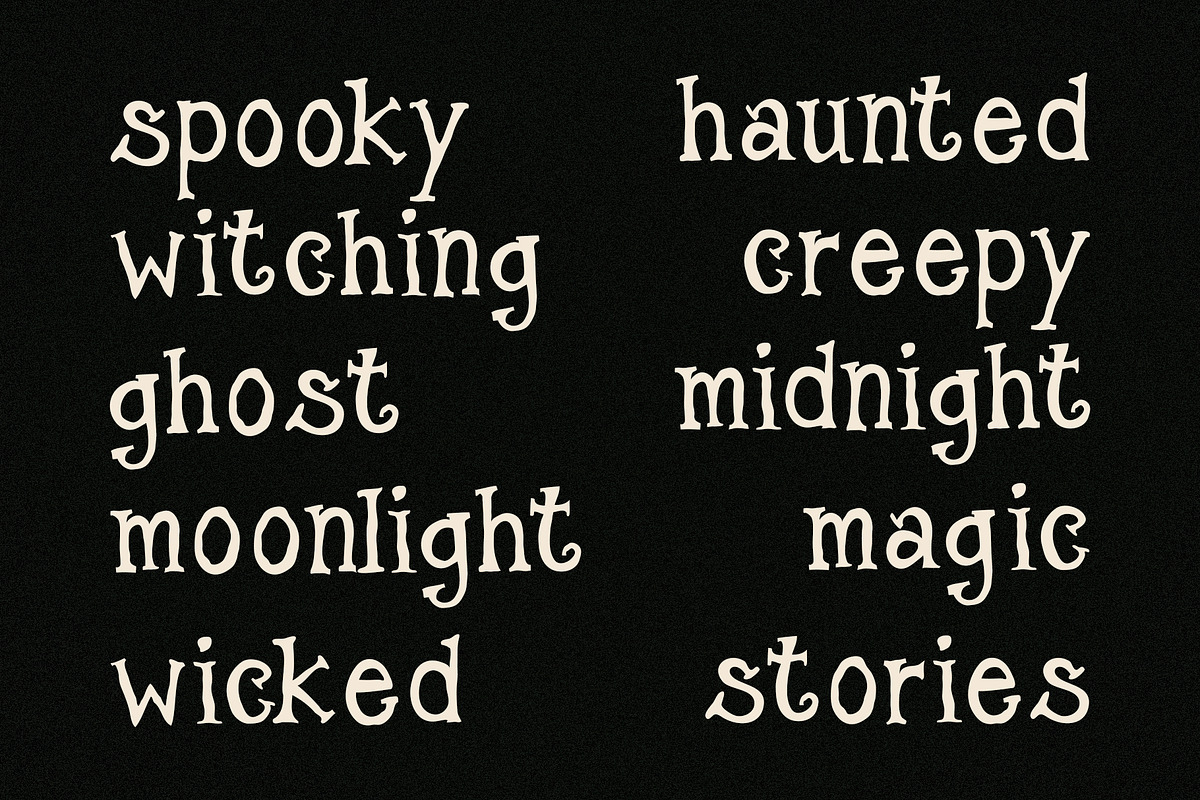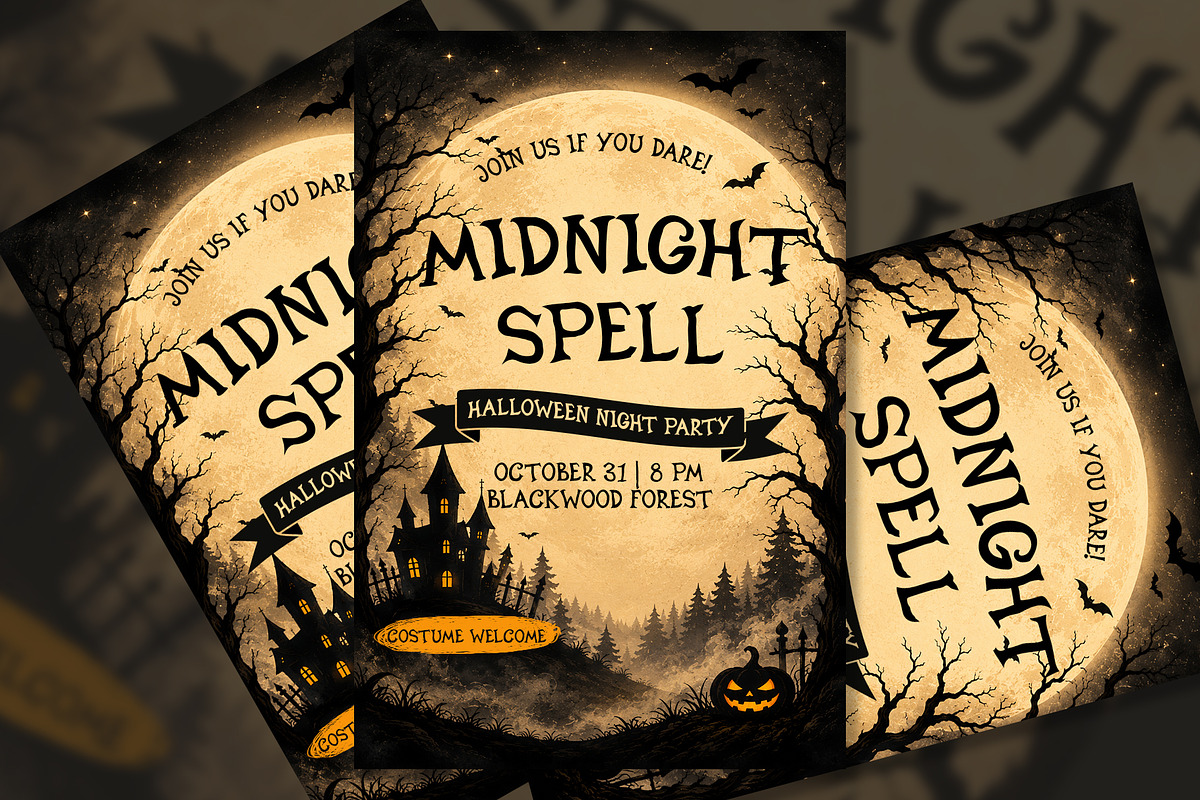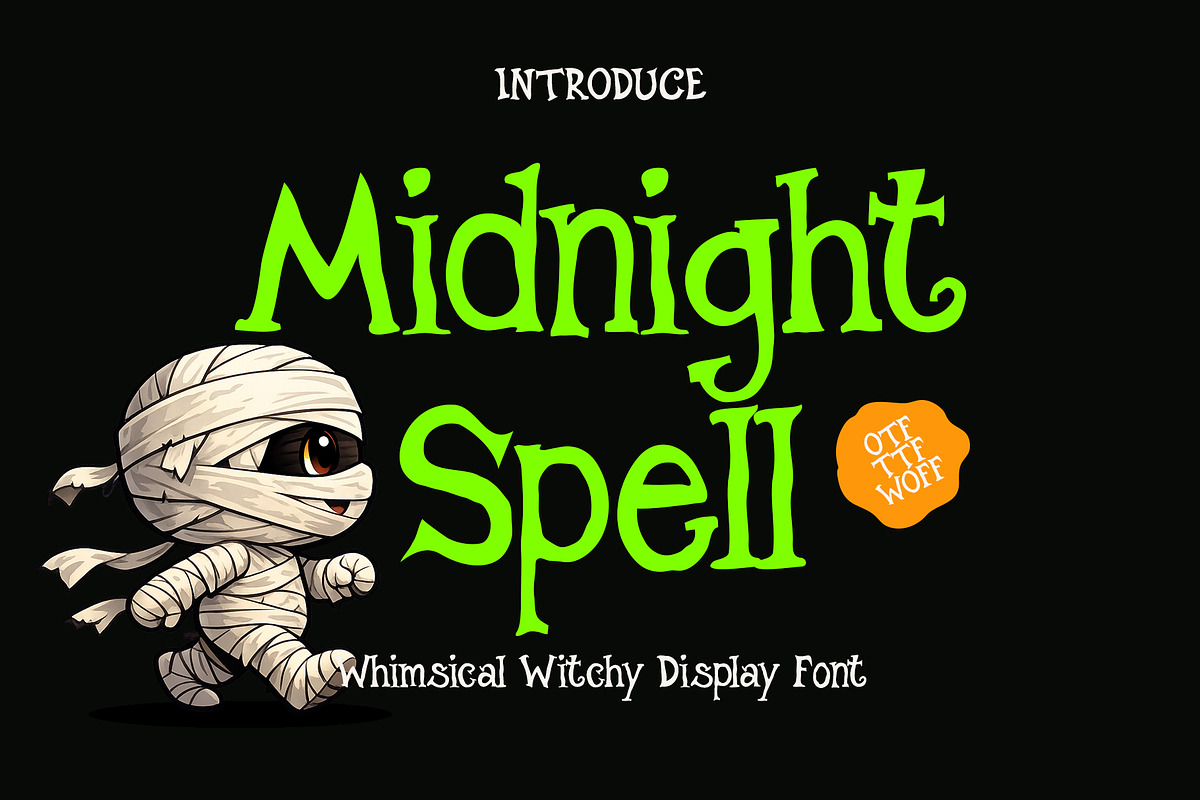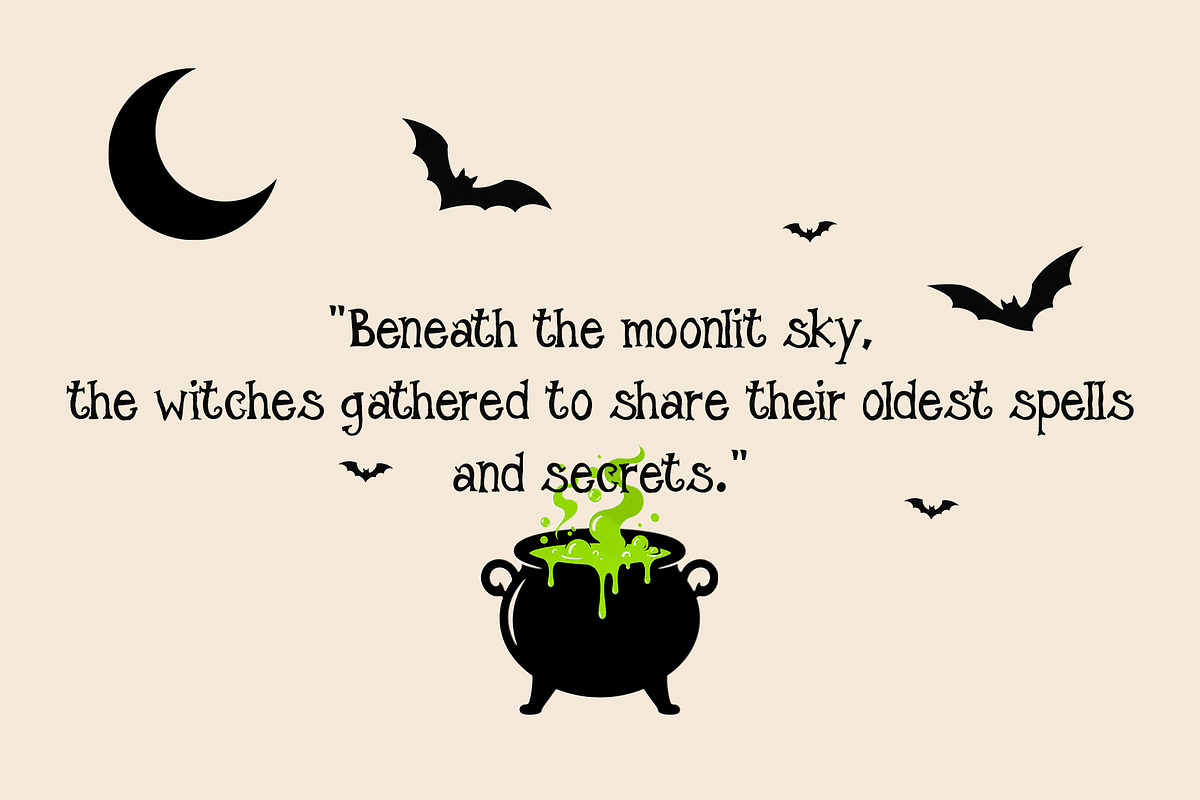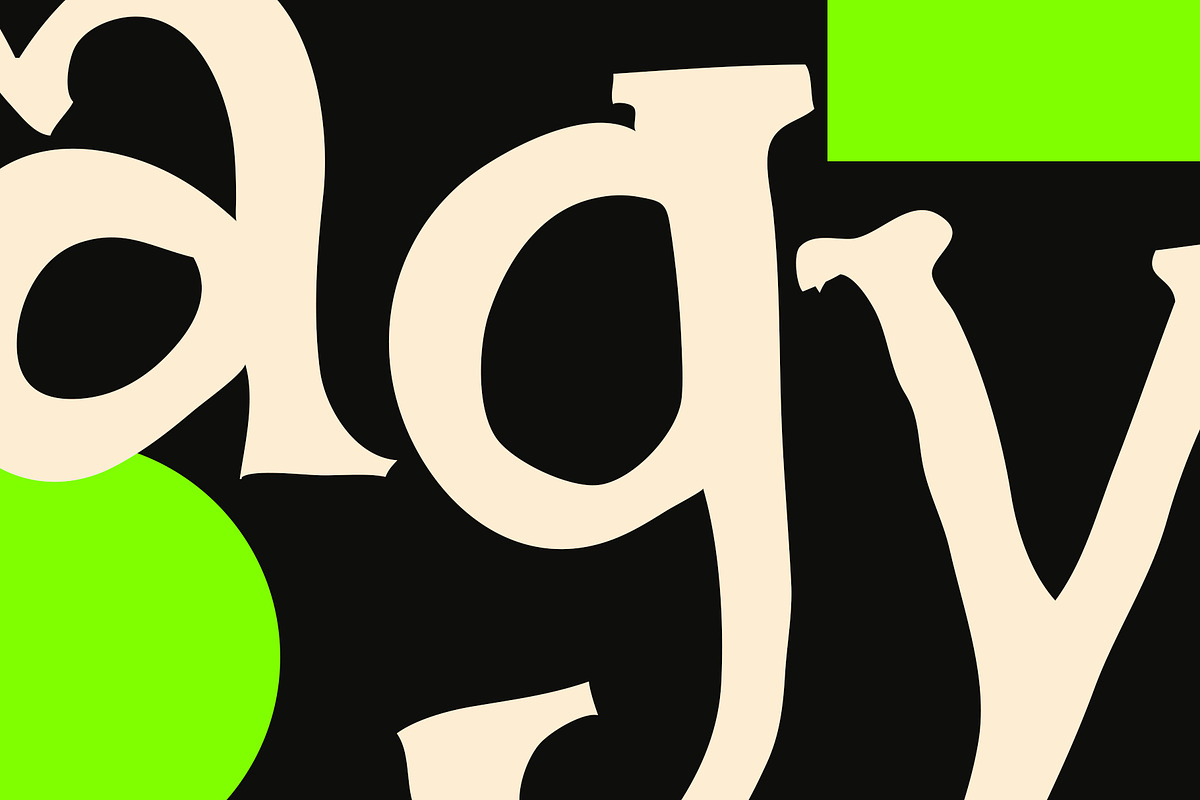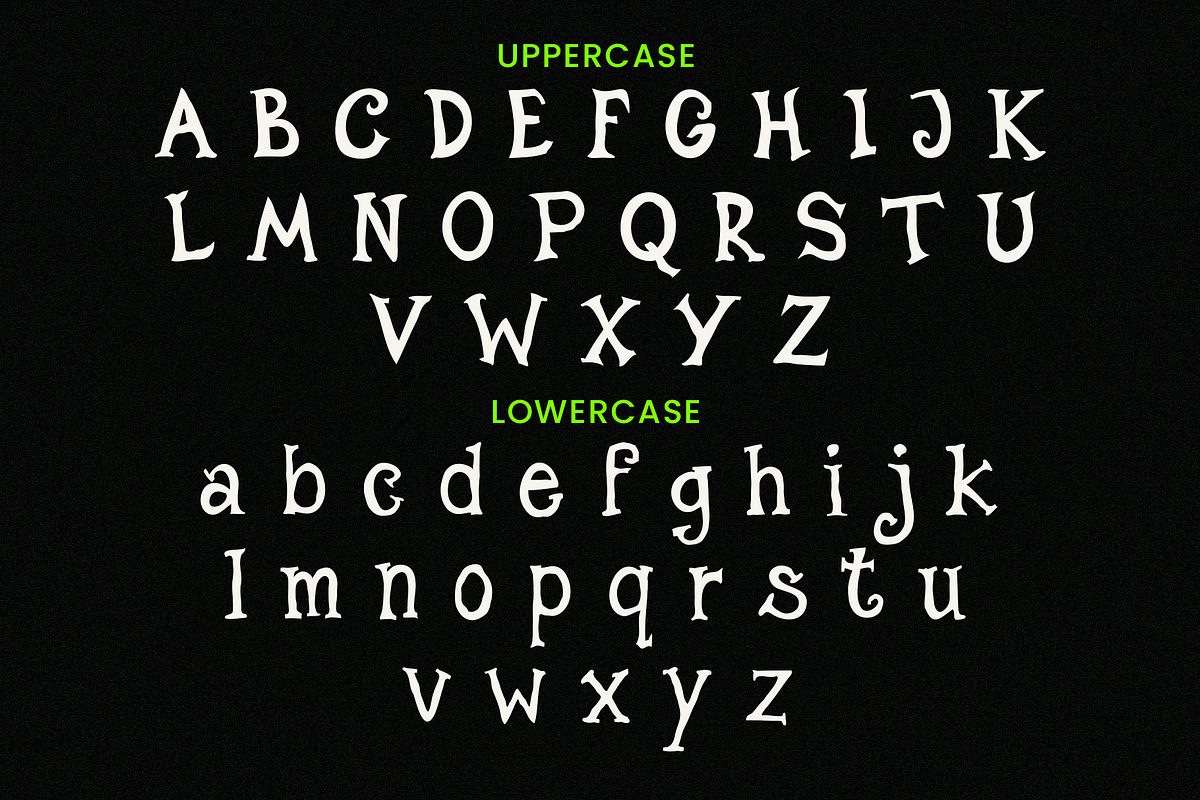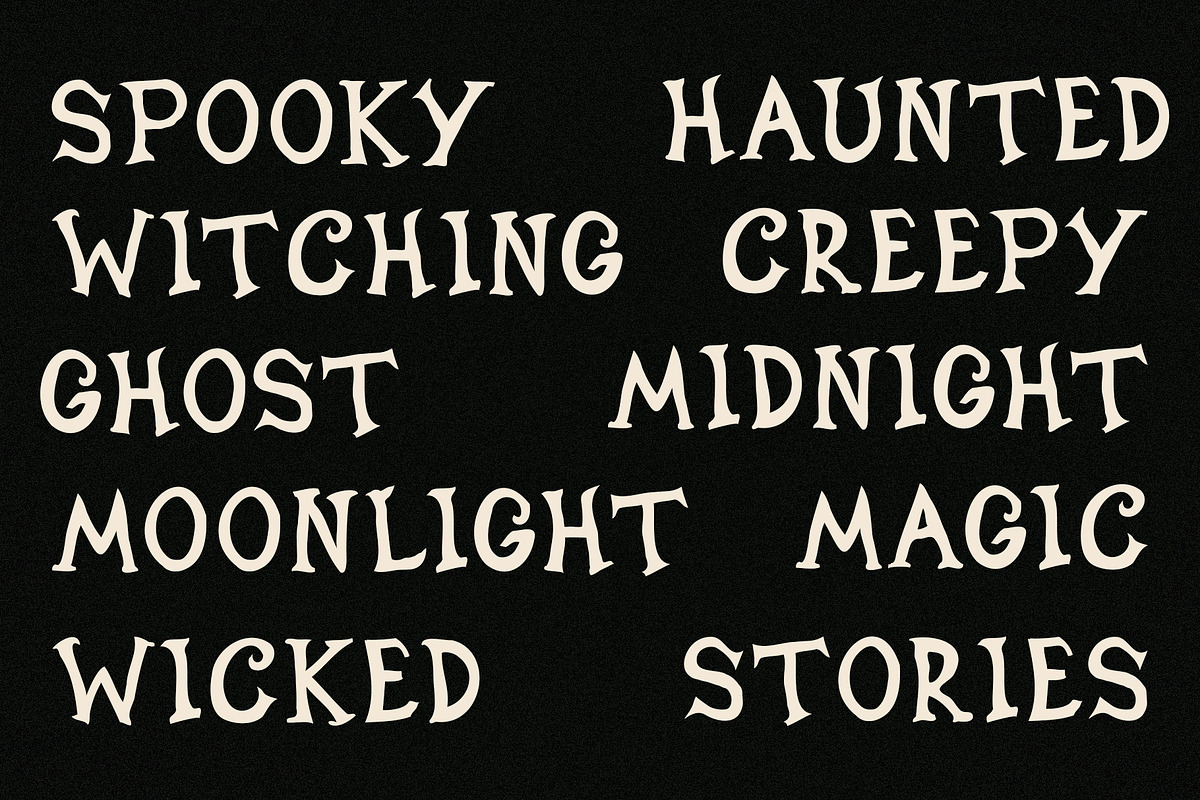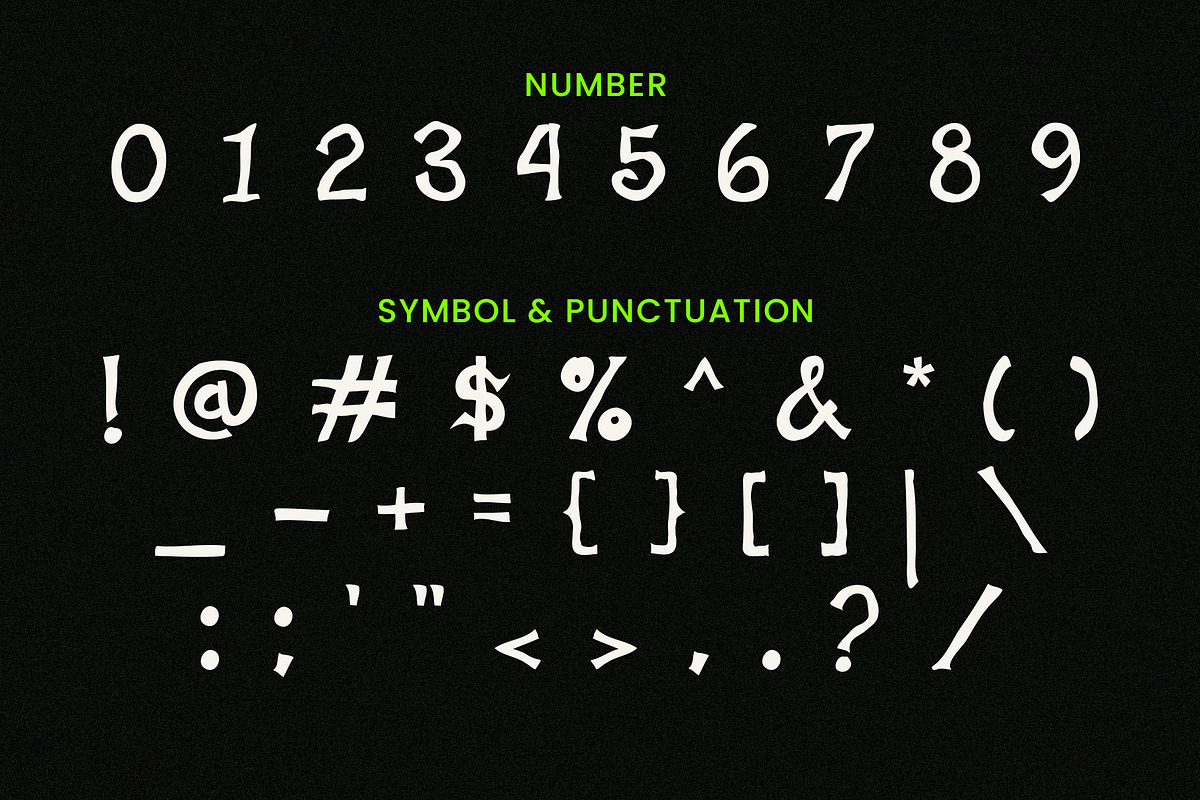
Midnight Spell - Witchy Font
Midnight Spell is a whimsical witchy display font inspired by magical spells, enchanted forests, and Halloween charm. Featuring playful curves, mystical details, and a spooky yet friendly personality, this font is perfect for Halloween projects, party invitations, branding, posters, social media graphics, packaging, and seasonal merchandise.